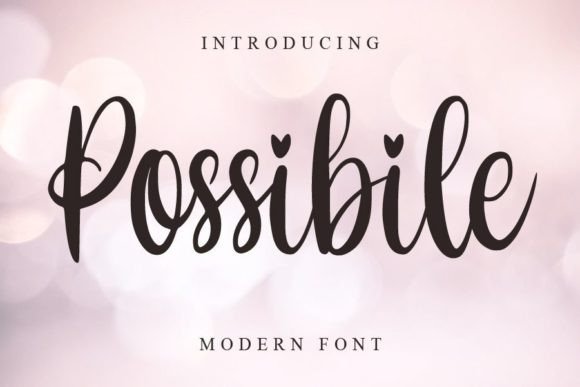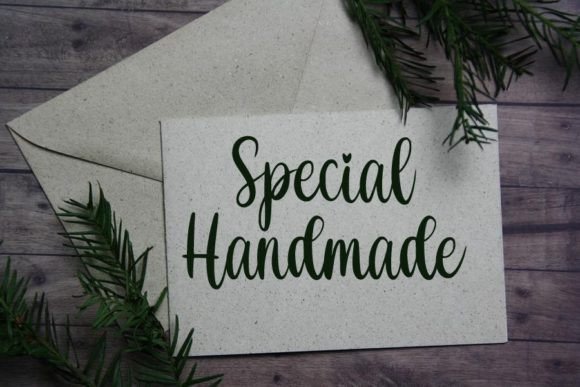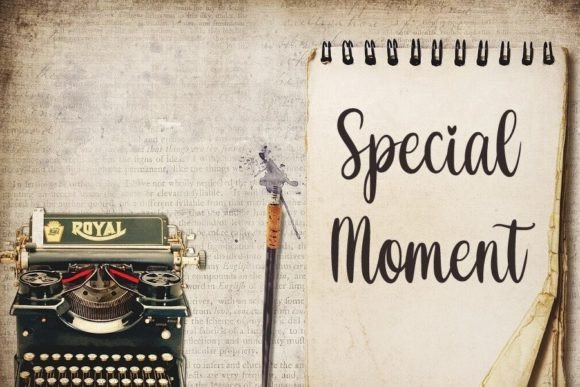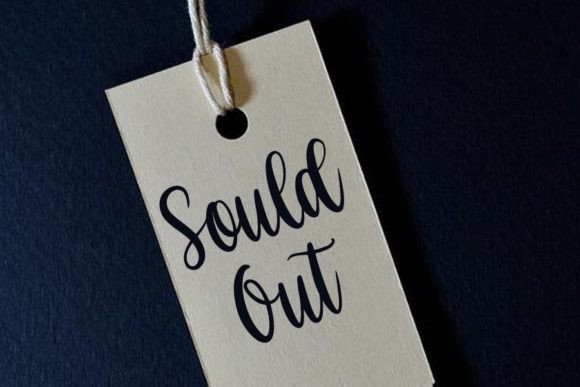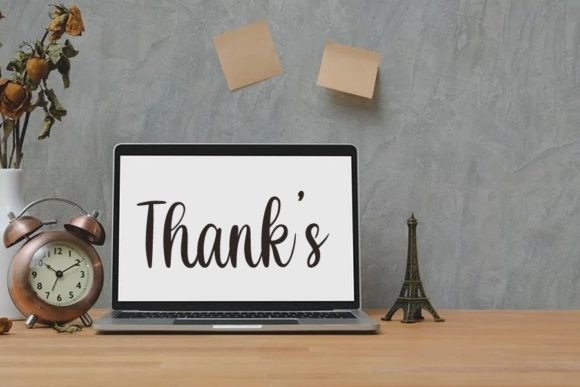
Possibile Font
About Possibile Font
**Possibile: Embracing Freshness in Design**
In the realm of typography, where creativity knows no bounds, “Possibile” emerges as a breath of fresh air. This handwritten font carries an air of elegance and uniqueness, making it the perfect choice for a myriad of design purposes. Its versatile nature opens the door to endless possibilities, from YouTube banners and cover logo mockups to wedding invitations, ID cards, flyers, and crafts. With “Possibile” at your fingertips, your business is not just a venture; it’s a journey of progress and development.
**A Fresh Perspective:**
“Possibile” brings a sense of freshness to your designs, making them visually appealing and inviting. Its handwritten style adds a personal touch, capturing the essence of creativity and originality. The font’s smooth curves and well-crafted characters create a harmonious blend of elegance and simplicity, making it suitable for a wide array of creative projects.
**Versatility Unleashed:**
One of the standout features of “Possibile” is its versatility. It seamlessly fits into various design contexts, enhancing the visual appeal of YouTube banners, adding a touch of sophistication to cover logo mockups, infusing elegance into wedding invitations, and ensuring professionalism in ID cards. Whether you’re promoting an event or crafting a business flyer, this font adapts effortlessly, catering to your diverse design needs.
**Crafting Memorable Experiences:**
Every design tells a story, and “Possibile” crafts narratives that linger in the minds of viewers. Its uniqueness makes your creations memorable, leaving a lasting impression on your audience. Whether you’re organizing an event or promoting your business, this font elevates your message, making it not just a statement but an unforgettable experience.
**Progress and Development:**
In the dynamic world of business, progress is the key to success. “Possibile” serves as a catalyst, propelling your business forward. Its fresh and contemporary style resonates with modern audiences, aligning your brand with current trends. By incorporating this font into your designs, you signal to your audience that your business is not just evolving; it’s thriving, adapting to the changing landscape with grace and style.
**Conclusion:**
“Possibile” is more than just a font; it’s a creative companion that empowers your designs, infusing them with freshness, versatility, and uniqueness. By choosing “Possibile,” you’re not just selecting a typeface; you’re embracing a design philosophy that propels your business towards progress and development. So, unleash the possibilities, let your creativity flourish, and watch how “Possibile” transforms your designs into captivating visual experiences.